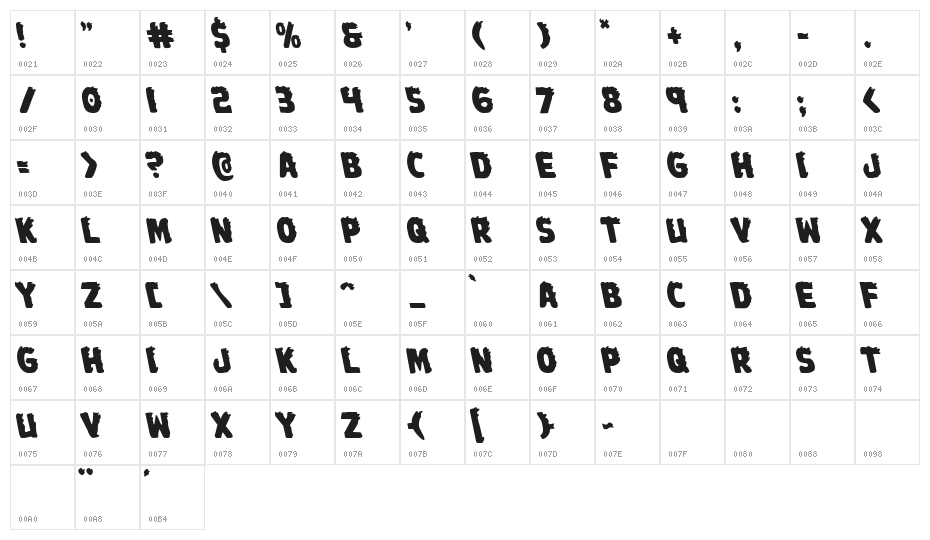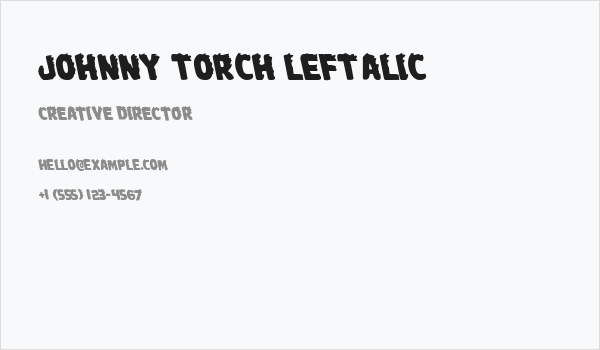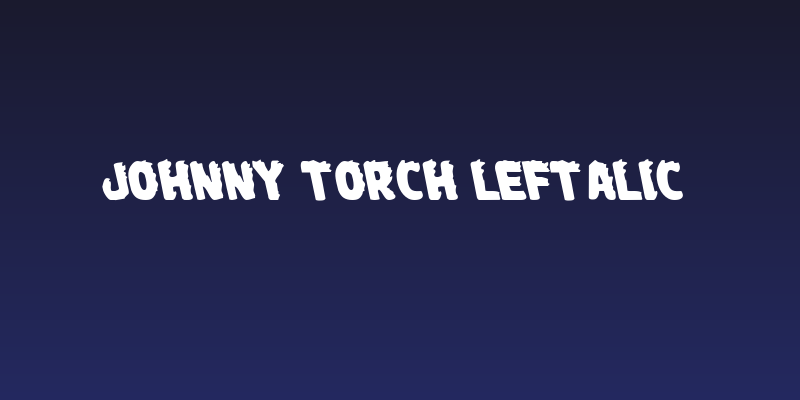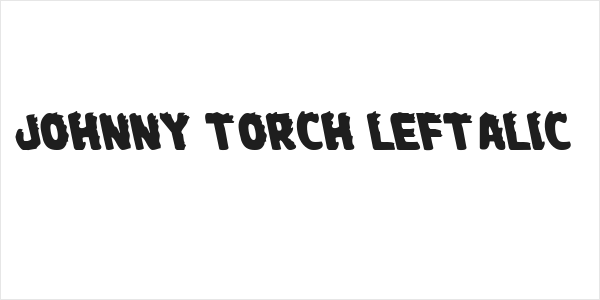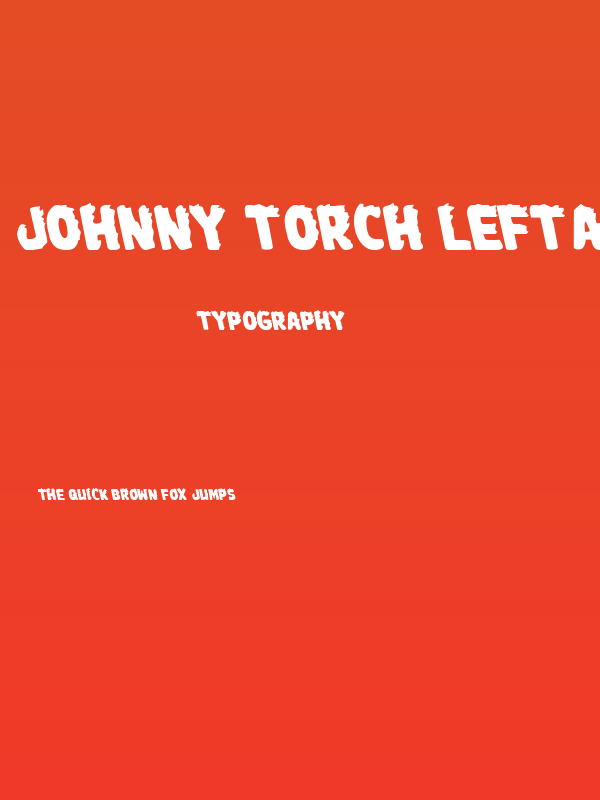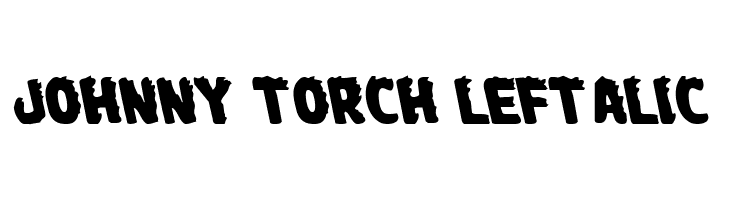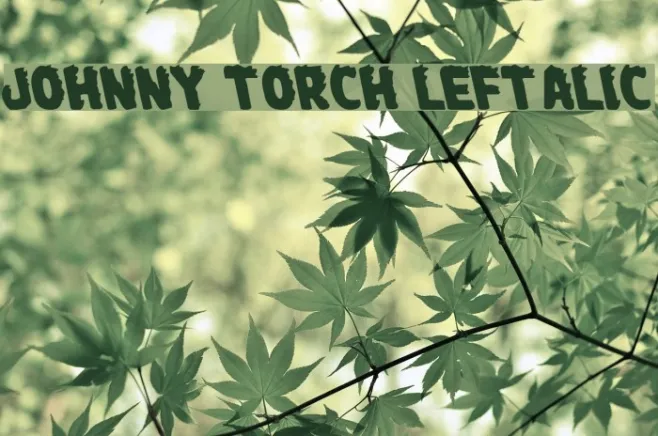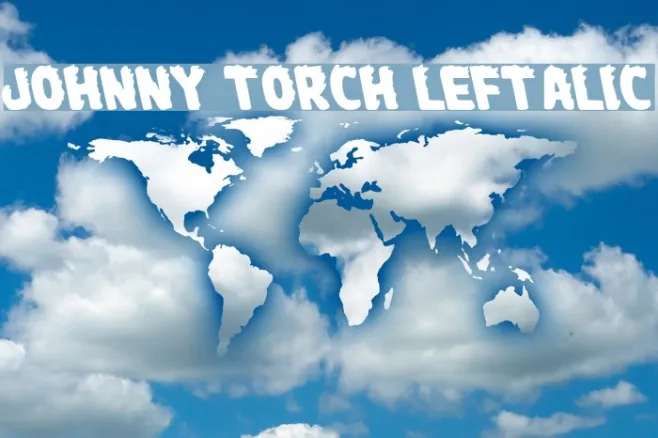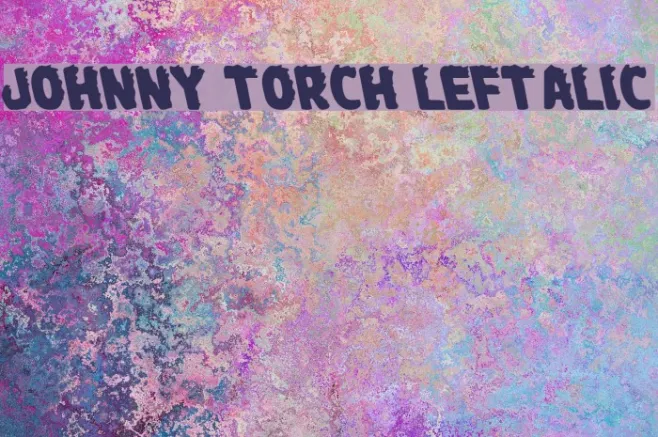
Johnny Torch Leftalic Font
Johnny Torch Leftalic Description
This font features a bold and dynamic style with a playful, energetic flair. The characters are thick and robust, with a slightly irregular and hand-drawn appearance that adds a sense of movement and vitality. The strokes are heavy, giving the font a strong presence, while the edges are slightly rough, enhancing its informal and artistic feel. The font leans slightly to the left, adding to its unique and quirky character. It is well-suited for projects that require a bold statement or a creative touch.
| Proposed Projects | Ideal for posters, logos, comic book titles, and creative branding projects. |